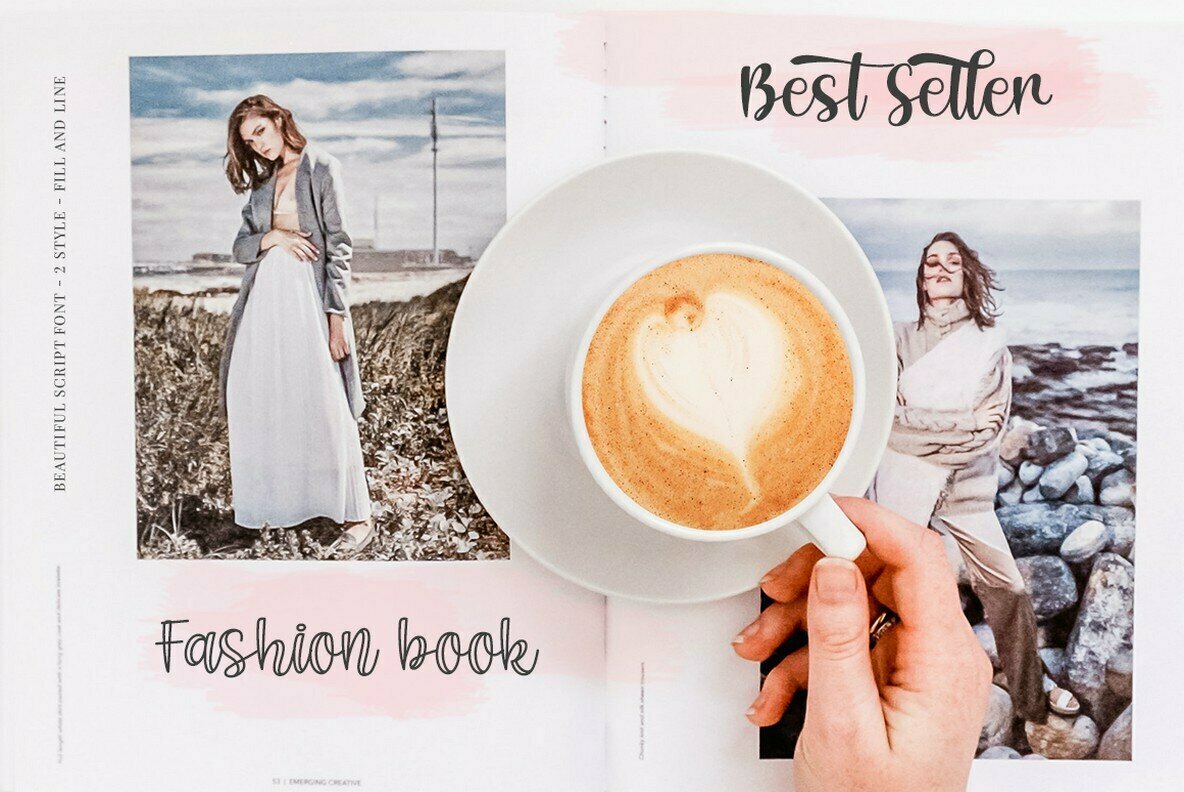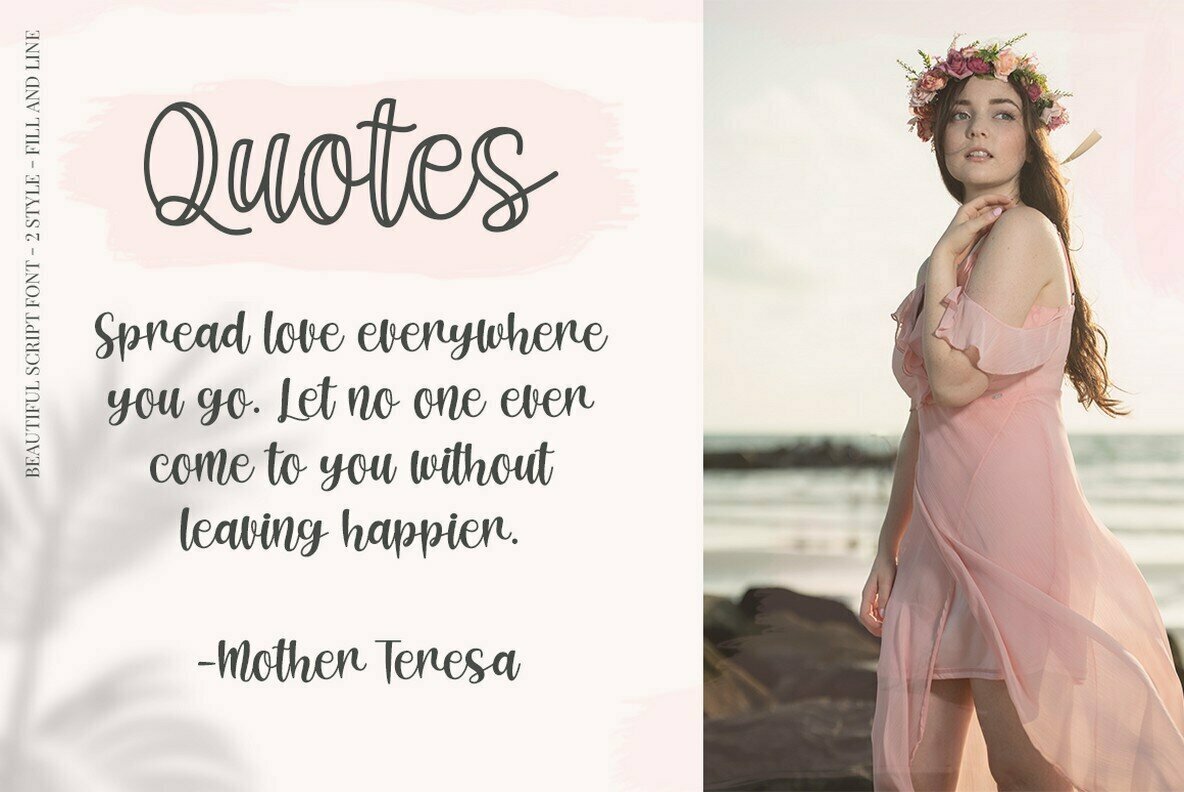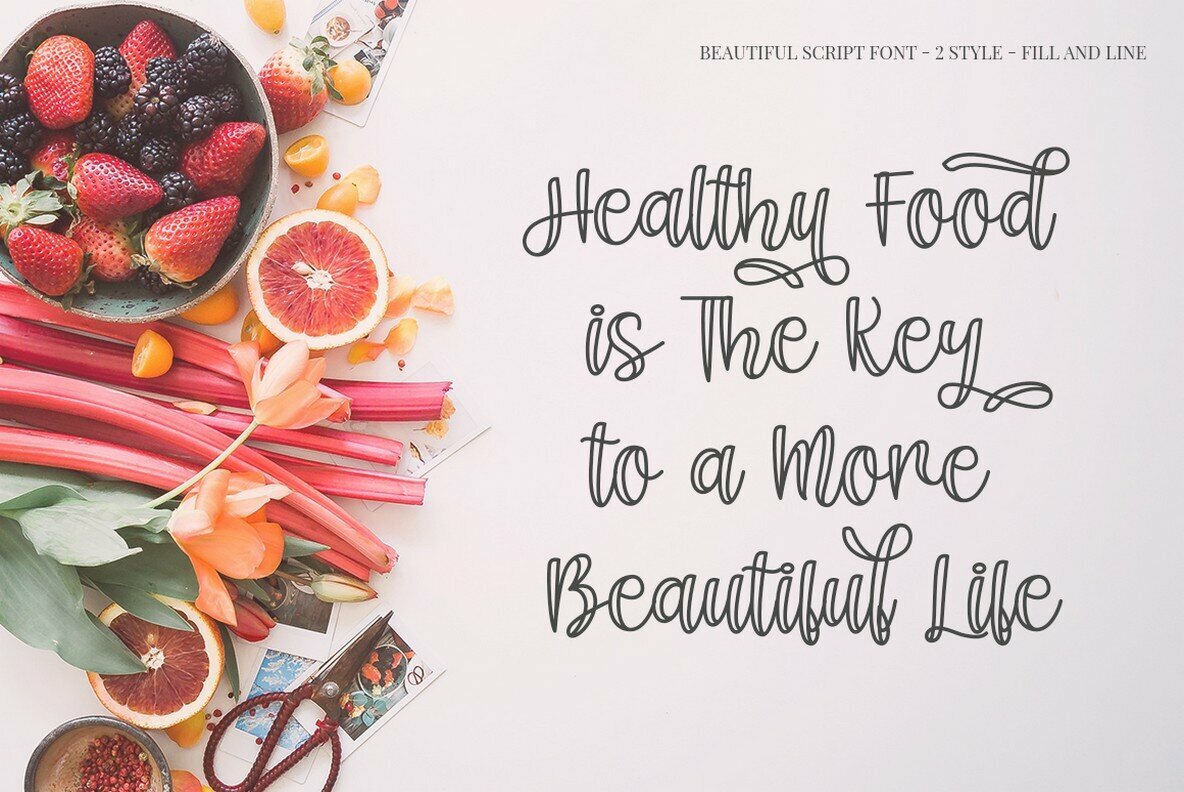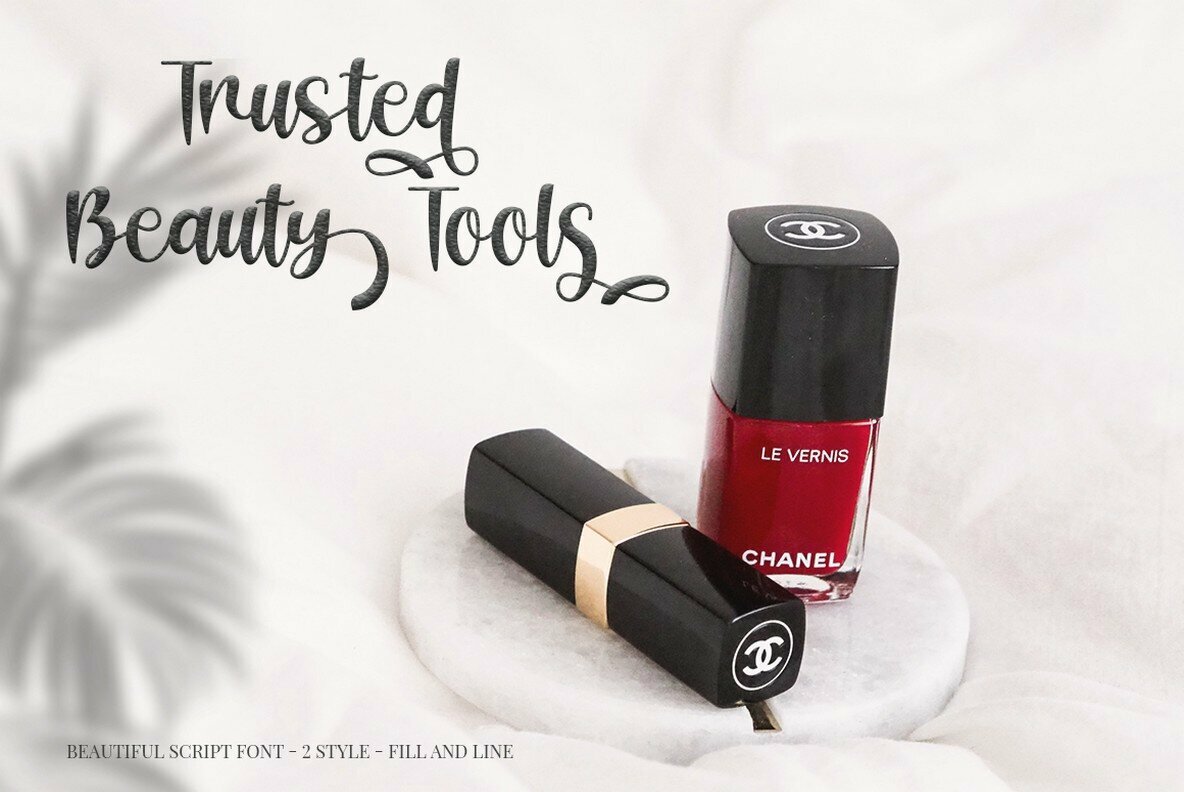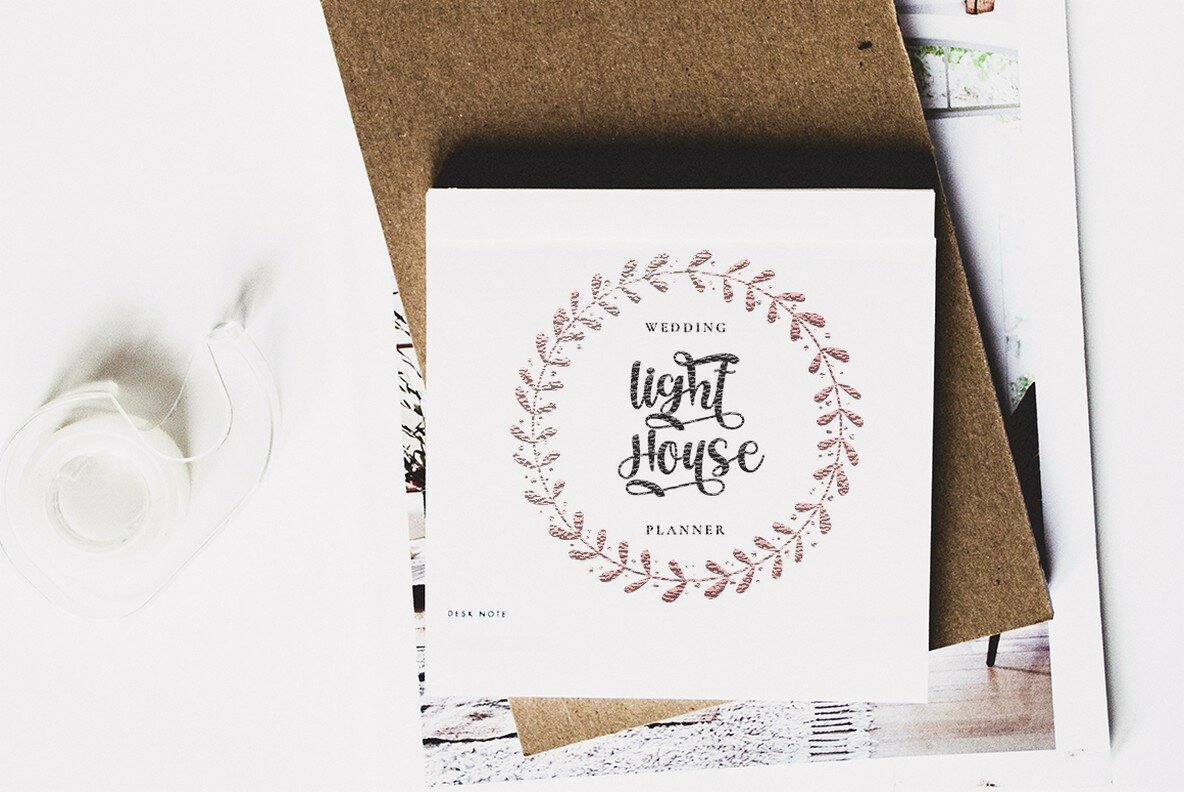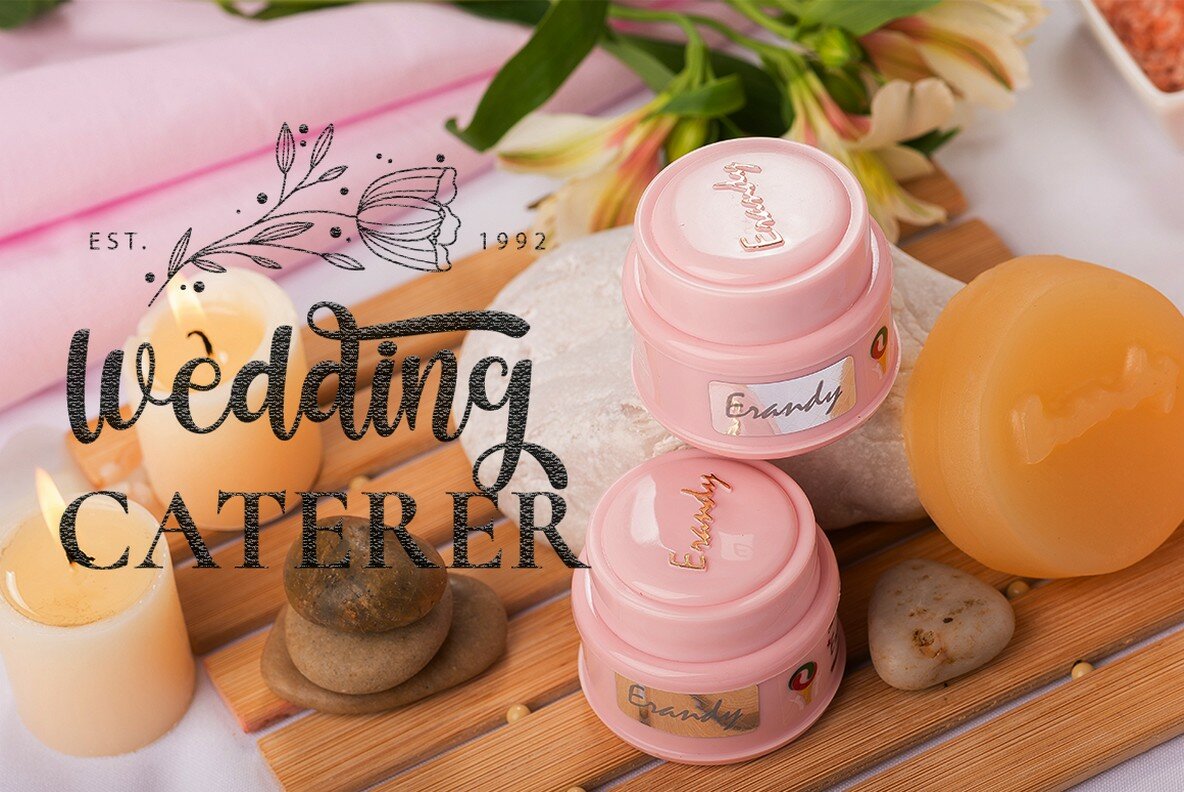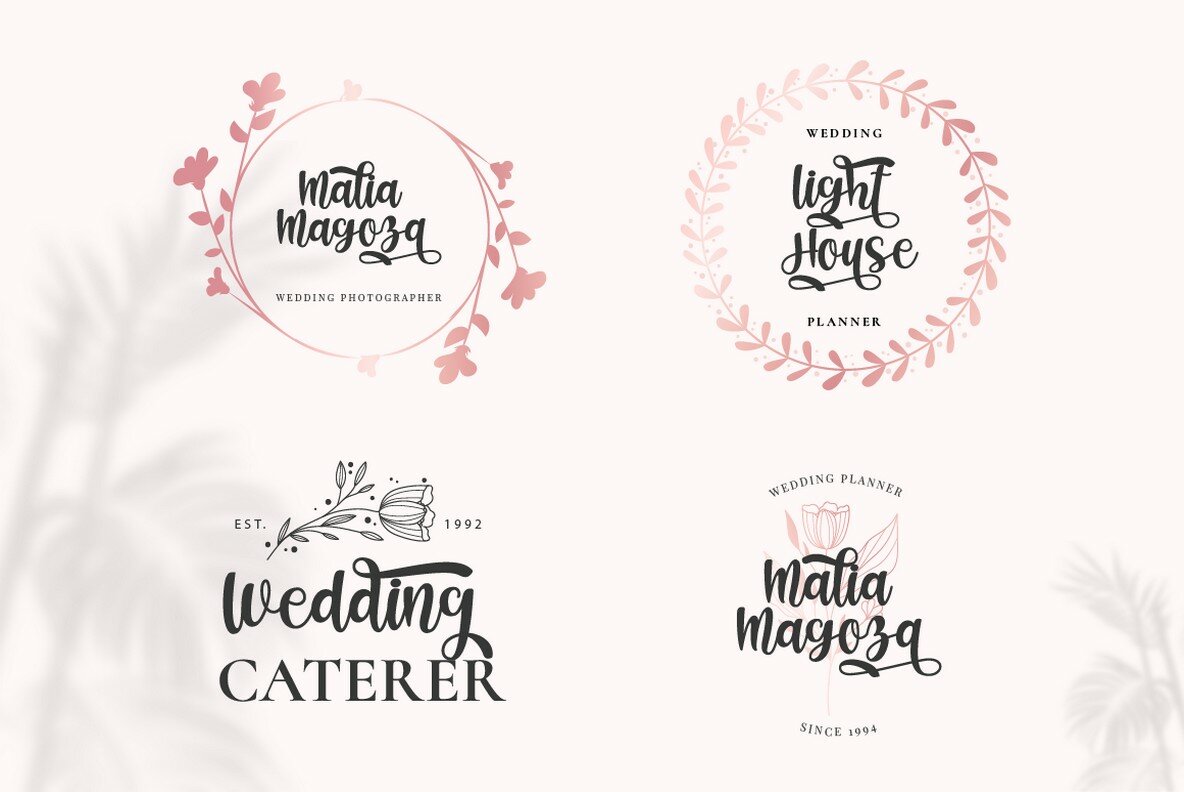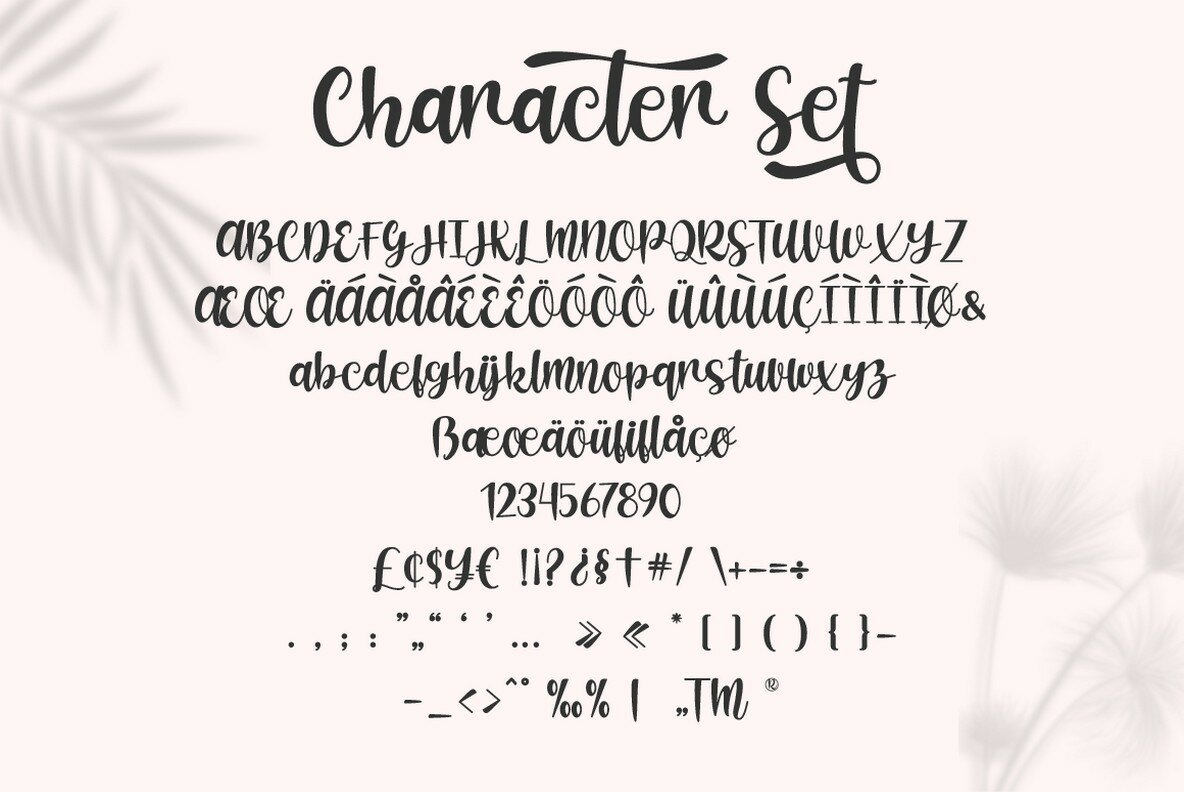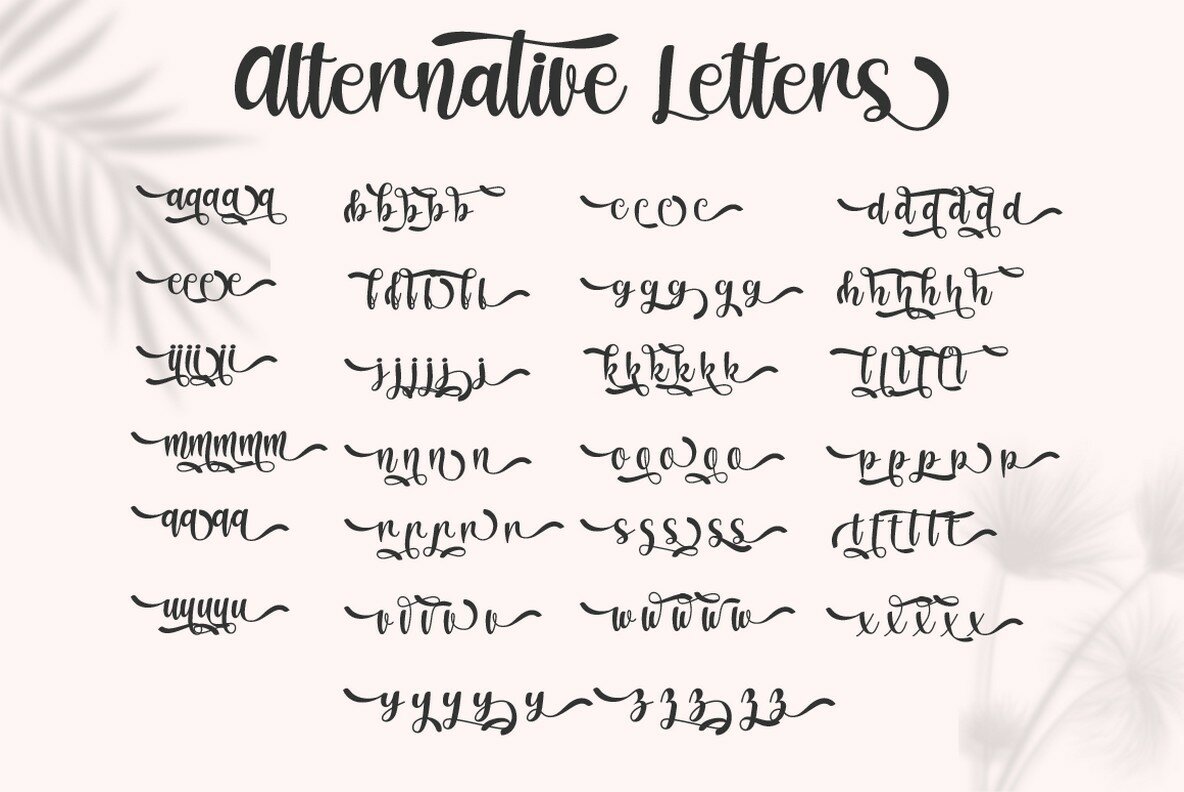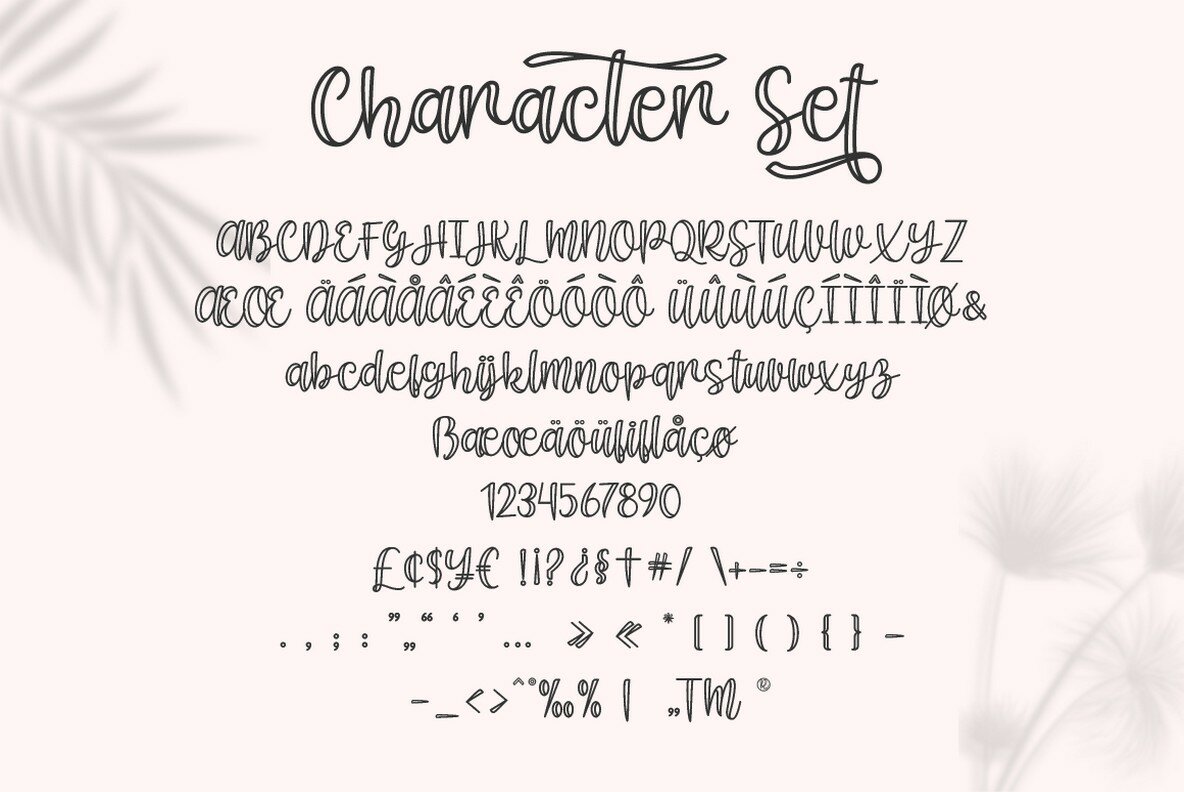
Shecarea Font
Shecarea Regular
Shecarea Line
Shecarea is a captivating script font offering both fill and line styles, each bringing a modern yet distinct flair to your designs. Its unique blend of forms caters to projects requiring a more feminine touch. Perfectly crafted for a myriad of applications, Shecarea excels in logotype creation, wedding invitations, fashion projects, and sophisticated branding. With an open type feature set, Shecarea provides an array of alternates and ligatures to facilitate stunning lettering compositions. Its multilingual support further enhances its usability, making it an excellent choice for global projects.Shecarea: Versatile Script Font With Dual Styles